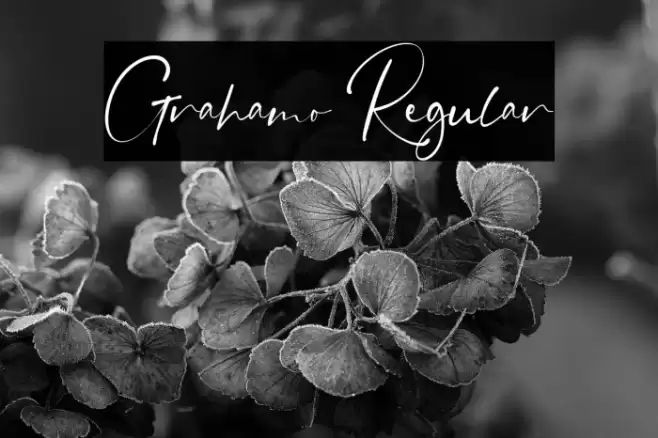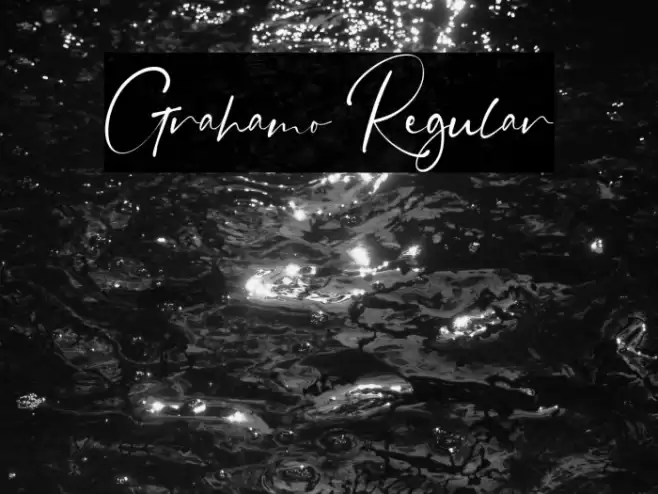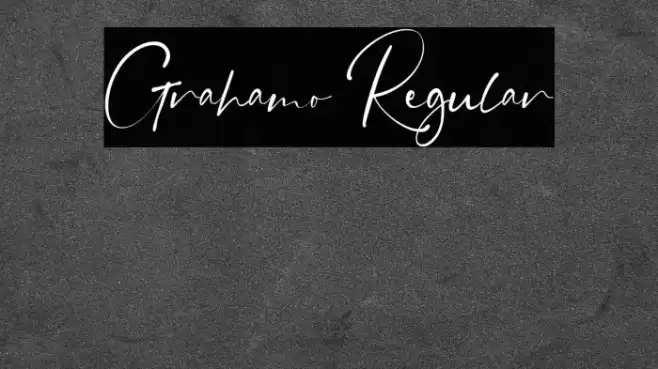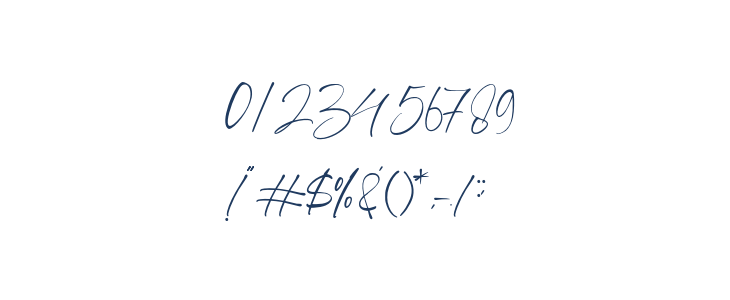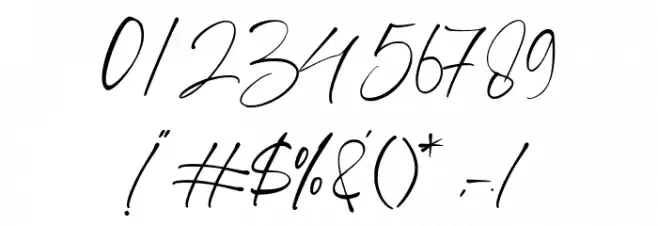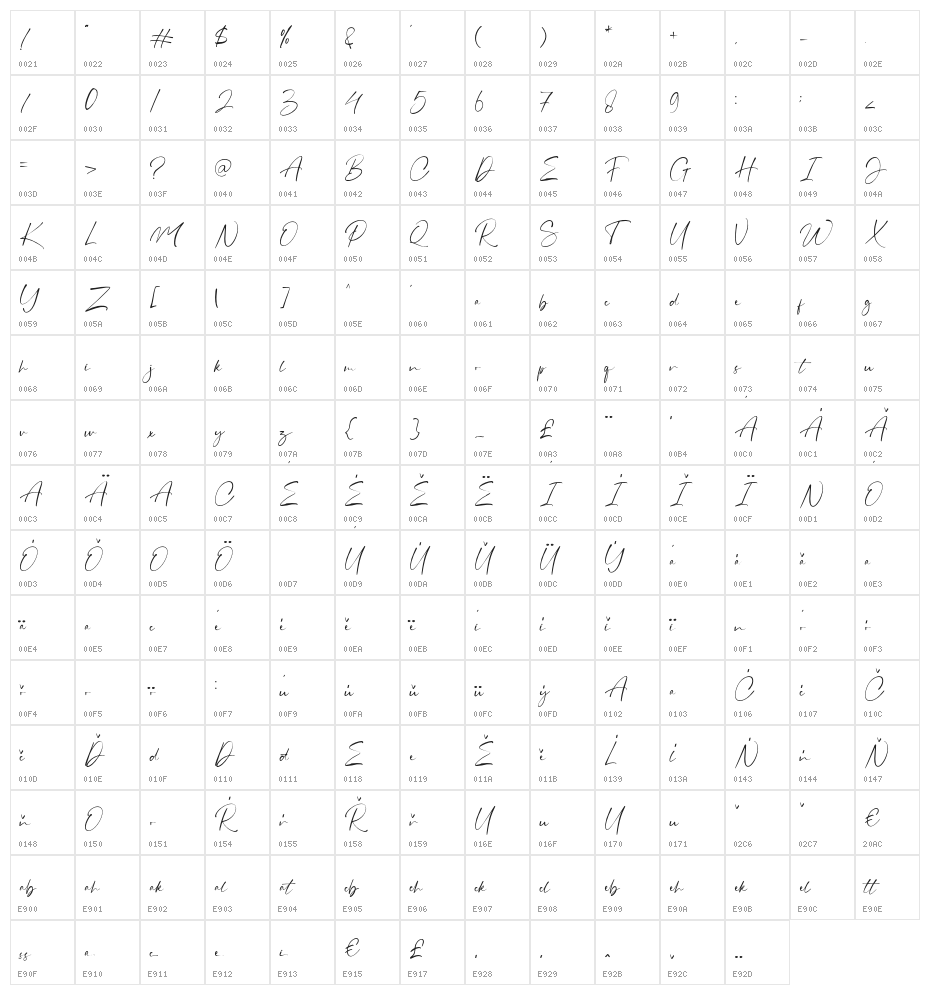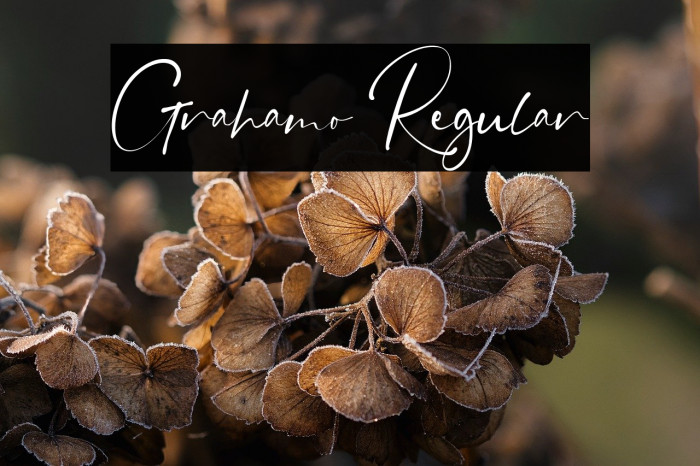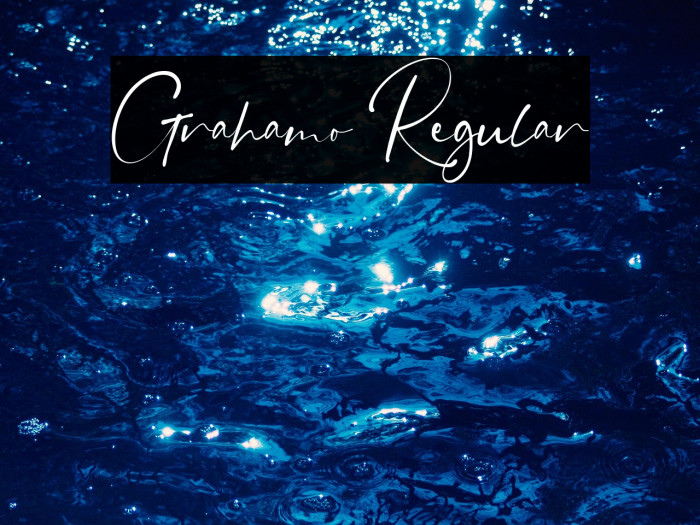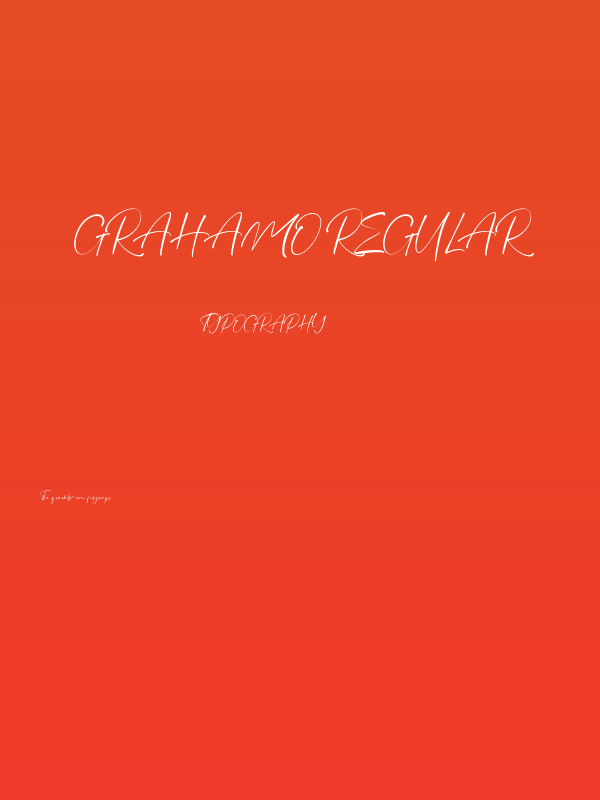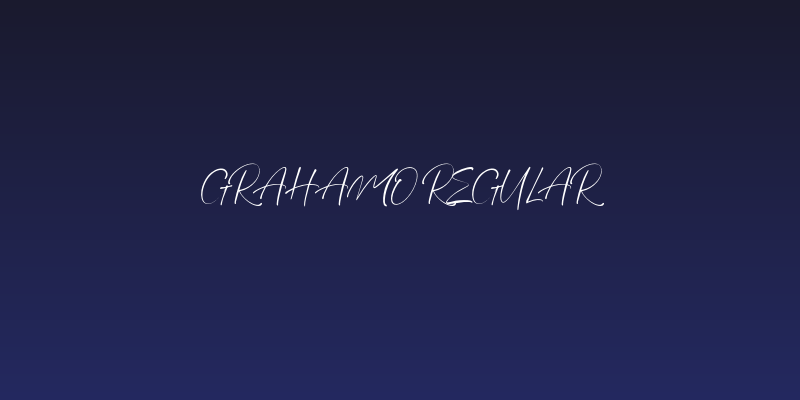
Grahamo Regular Font
Grahamo Regular Description
This font exhibits a flowing, cursive style with elegant, sweeping strokes that give it a sophisticated and artistic appearance. The uppercase letters are bold and dramatic, with a slight slant that adds a dynamic feel. The lowercase letters maintain a consistent flow, featuring loops and curves that enhance its handwritten aesthetic. Numbers and special characters are designed with the same fluidity, ensuring a cohesive look across all glyphs. The overall design is both stylish and readable, making it suitable for various creative applications.
A flowing, cursive font with elegant, sweeping strokes and a sophisticated appearance from Regular fonts.
- Proposed Projects: Ideal for wedding invitations, greeting cards, branding projects, and elegant logos.
- Overall Style: Elegant
- Use Case: Logos, Invitations, Branding